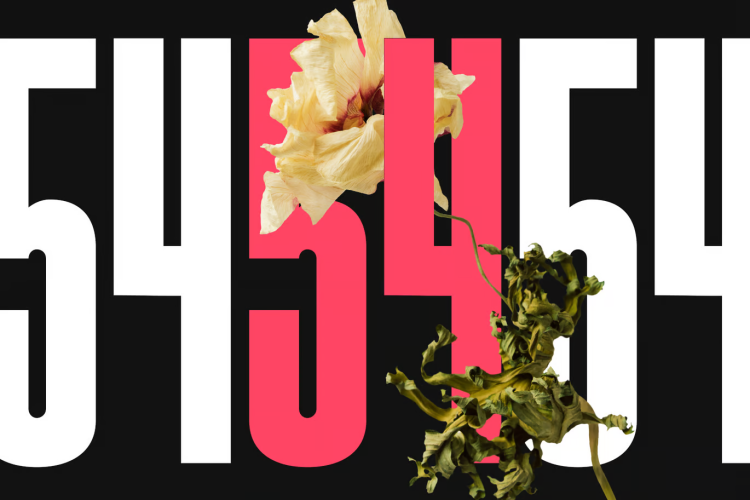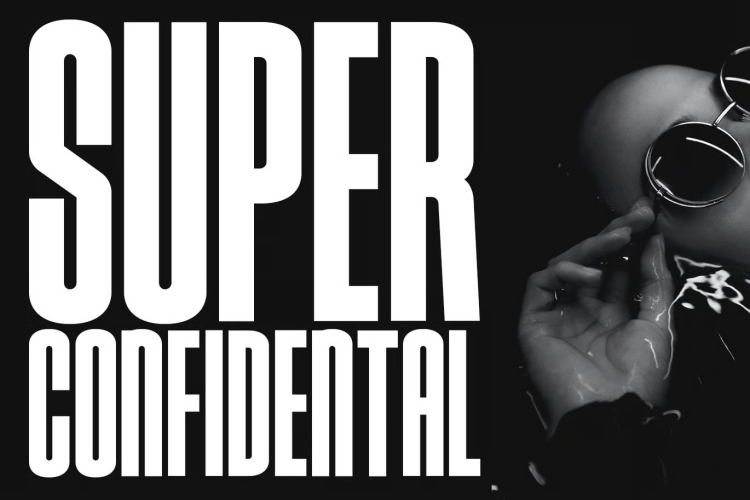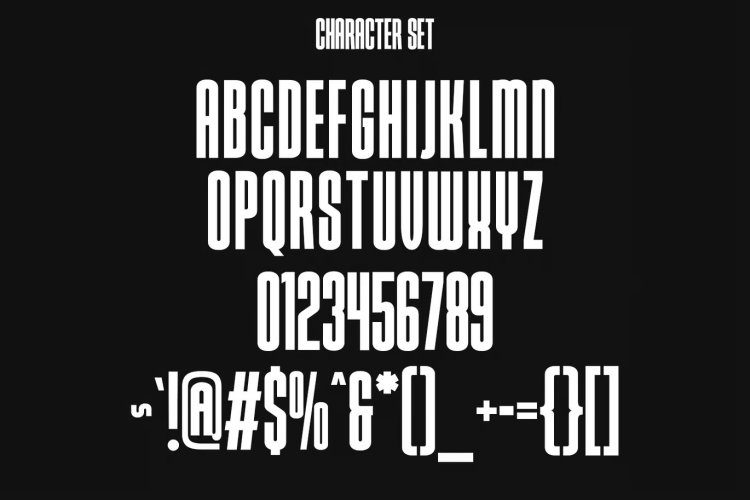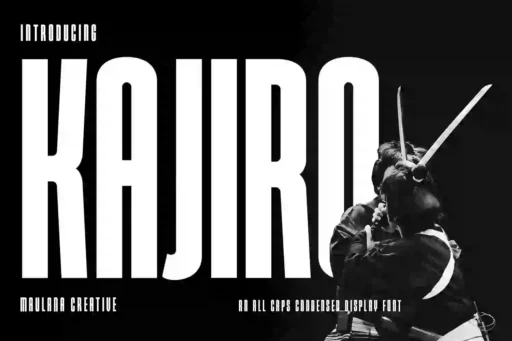
Kajiro Font
The Kajiro font is a slim, all-caps sans serif that has a bold and sharp look. It gives any project a creative edge with its thick strokes, fun characters, ligatures, and variations.
Kajiro supports over 100 languages, making it a versatile choice for creators worldwide. Use it for logos, social media graphics, movie and book titles, or as a stylish pairing with sans or serif fonts.
This font has a bold and modern look that will make your projects stand out.
Kajiro Font is a Sans Serif Fonts font that brings a professional and versatile look to your projects. The Kajiro font is a slim, all-caps sans serif that has a bold and sharp look.